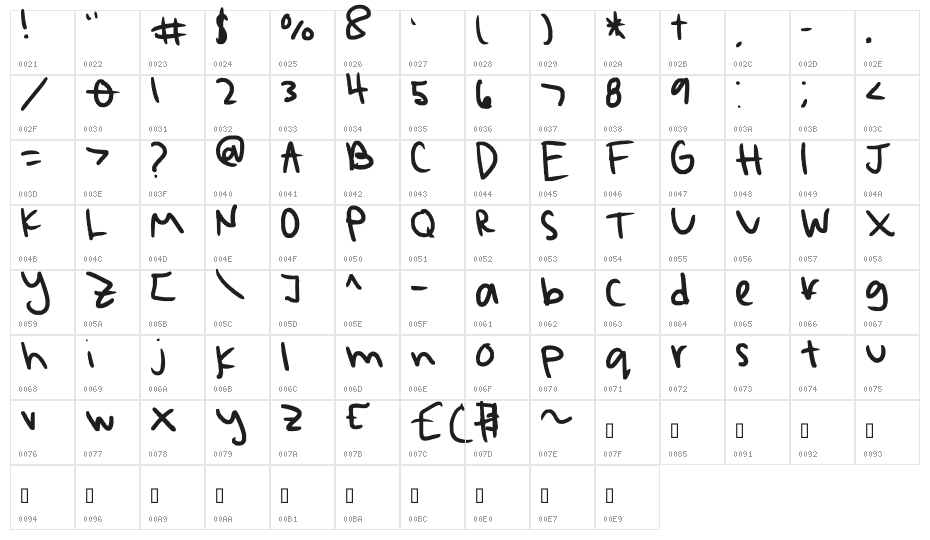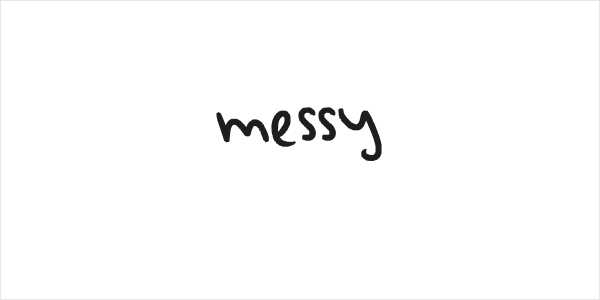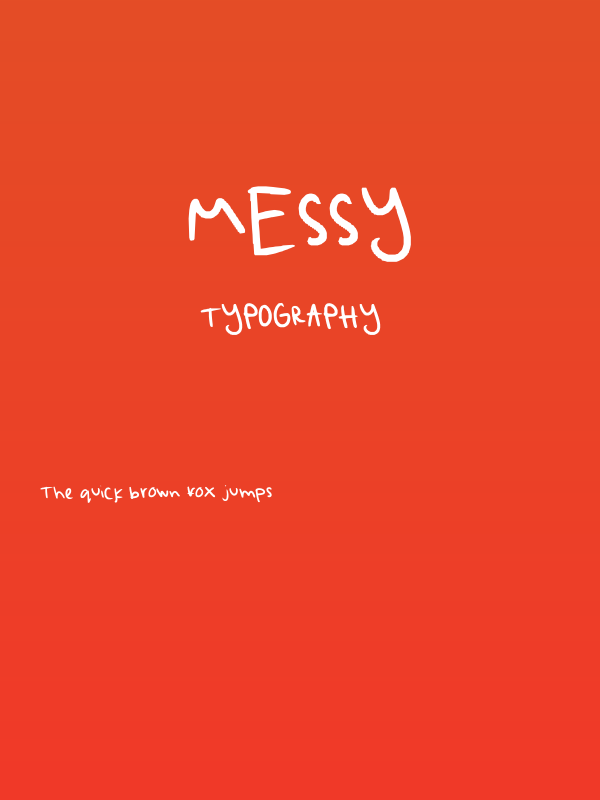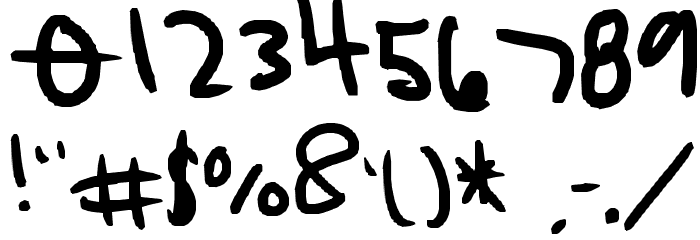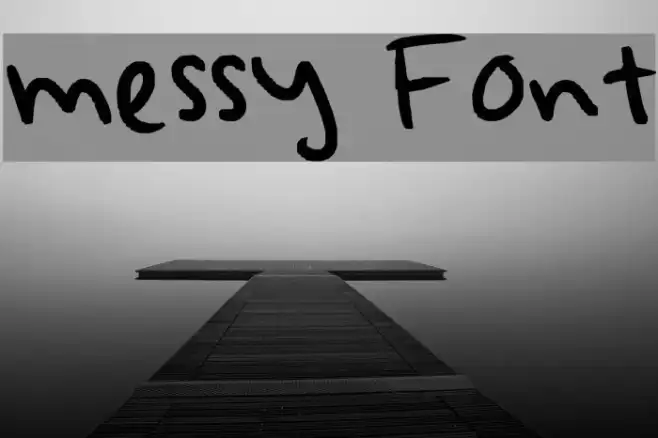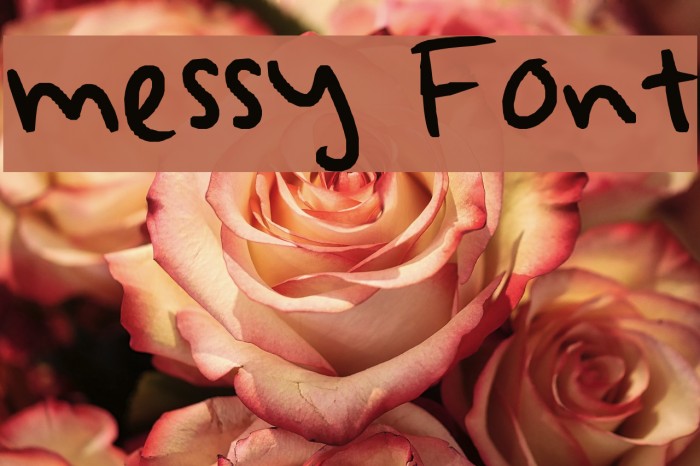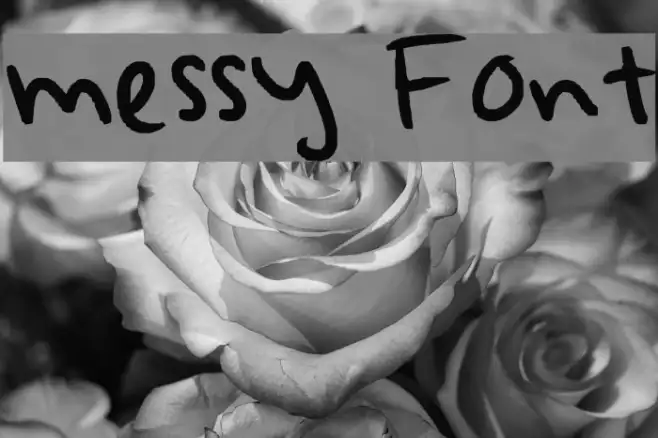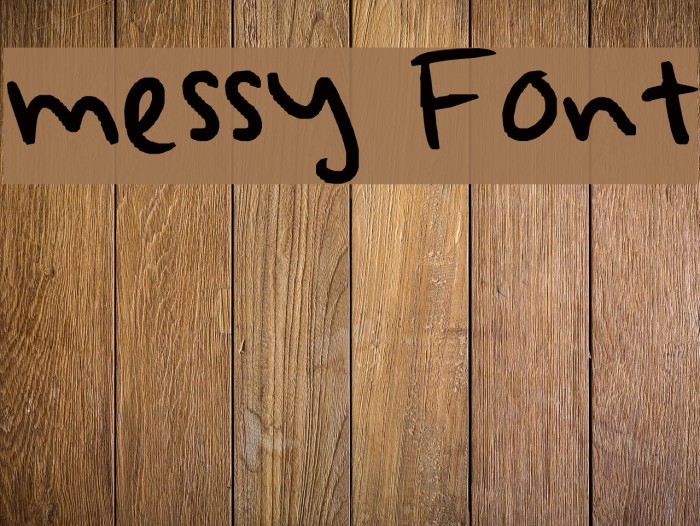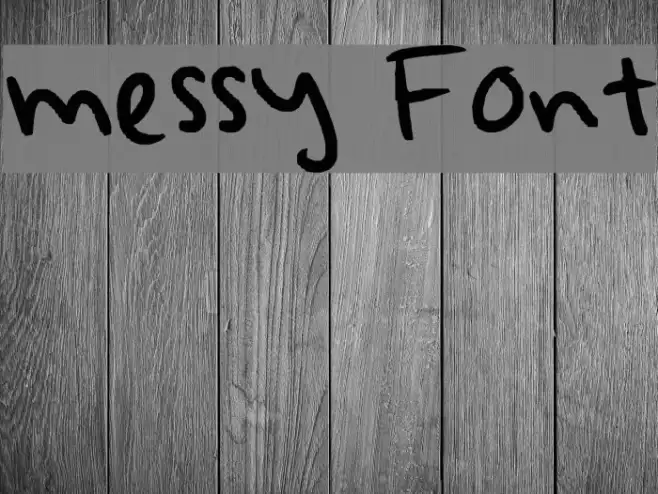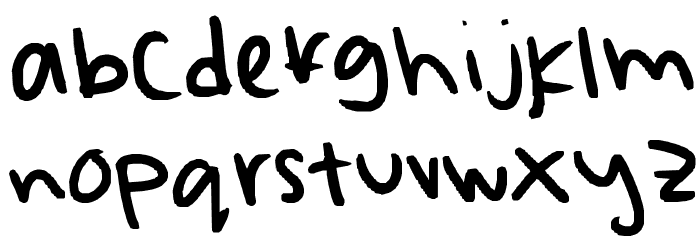
messy Font
messy Description
This font exudes a casual, handwritten style with a playful and informal appearance. The characters are unevenly sized and spaced, giving it a spontaneous and dynamic feel. The strokes are bold and slightly irregular, adding to the font's charm and approachability. It's reminiscent of a personal note or a quick sketch, making it ideal for projects that require a human touch. The uppercase and lowercase letters maintain a consistent style, while the numbers and special characters follow suit with the same lively energy.
| Proposed Projects | Ideal for greeting cards, children's books, casual invitations, and personal blogs. |